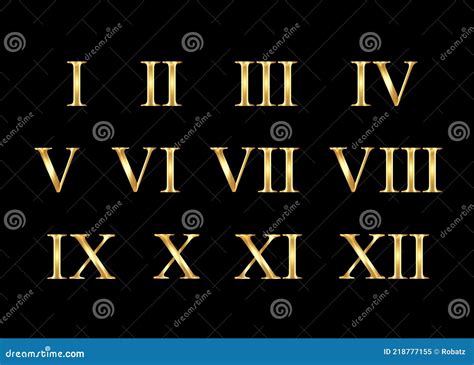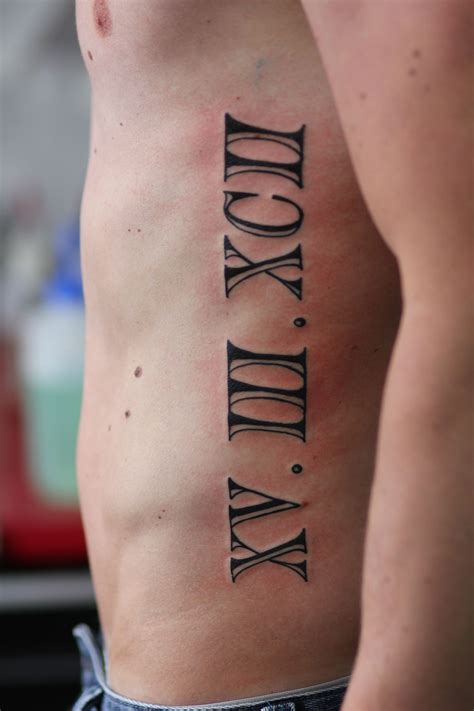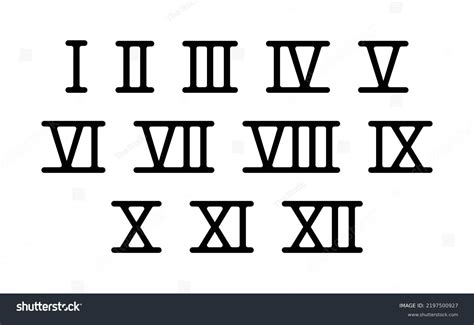
Roman numerals have been a fascinating part of human history, used extensively in ancient Rome and still relevant today in various contexts such as clock faces, book chapters, and even in the naming of monarchs and popes. One of the intriguing aspects of Roman numerals is the Roman Numbers Font, which adds a touch of elegance and historical significance to any design or document. This blog post will delve into the history, usage, and modern applications of Roman numerals, with a particular focus on the Roman Numbers Font.
History of Roman Numerals
Roman numerals originated in ancient Rome and were used for various purposes, including counting, labeling, and recording dates. The system is based on seven symbols: I, V, X, L, C, D, and M, which represent the numbers 1, 5, 10, 50, 100, 500, and 1,000, respectively. The numerals are combined in specific ways to represent larger numbers. For example, IV represents 4, IX represents 9, and XL represents 40.
The Roman numeral system was widely used throughout the Roman Empire and continued to be used in Europe well into the Middle Ages. However, with the advent of the Hindu-Arabic numeral system, which is more efficient for calculations, the use of Roman numerals declined. Today, Roman numerals are primarily used for decorative and symbolic purposes.
Understanding the Roman Numbers Font
The Roman Numbers Font is a typeface designed to mimic the appearance of traditional Roman numerals. This font is often used in contexts where a classical or historical aesthetic is desired. The font features elegant, serifed letters that evoke the style of ancient Roman inscriptions. The use of the Roman Numbers Font can add a sense of timelessness and sophistication to any project, whether it's a wedding invitation, a historical document, or a branding design.
One of the key features of the Roman Numbers Font is its readability. Despite its ornate appearance, the font is designed to be clear and easy to read, making it suitable for a wide range of applications. The font is also highly versatile, as it can be used in both digital and print media. Whether you're designing a website, creating a logo, or typesetting a book, the Roman Numbers Font can enhance the visual appeal of your work.
Applications of Roman Numbers Font
The Roman Numbers Font has a wide range of applications in both personal and professional settings. Here are some of the most common uses:
- Wedding Invitations: The Roman Numbers Font is a popular choice for wedding invitations, as it adds a touch of elegance and formality to the design. Couples often use Roman numerals to indicate the date and time of their wedding, creating a timeless and sophisticated look.
- Historical Documents: When creating historical documents or replicas, the Roman Numbers Font is an essential tool. It helps to recreate the authentic look and feel of ancient texts, making the document more believable and immersive.
- Branding and Logos: Many companies use the Roman Numbers Font in their branding and logos to convey a sense of tradition and reliability. The font's classic design can help to establish a strong brand identity and make a lasting impression on customers.
- Book Design: In book design, the Roman Numbers Font is often used for chapter headings and page numbers. This adds a literary and scholarly touch to the book, making it more appealing to readers.
- Clock Faces: Roman numerals are commonly used on clock faces, and the Roman Numbers Font is the perfect choice for this application. The font's clear and legible design makes it easy to read the time, while its classic appearance adds a touch of elegance to any clock.
Designing with Roman Numbers Font
When designing with the Roman Numbers Font, there are several factors to consider to ensure the best results. Here are some tips for effective use of the font:
- Pairing with Other Fonts: The Roman Numbers Font pairs well with a variety of other fonts, but it works best with serif fonts that have a similar classic feel. Avoid pairing it with modern, sans-serif fonts, as this can create a jarring contrast.
- Color and Contrast: Choose colors that complement the font's elegant design. Dark, rich colors like black, navy blue, and deep red work well with the Roman Numbers Font. Ensure there is sufficient contrast between the text and the background to maintain readability.
- Size and Spacing: The Roman Numbers Font is best used in larger sizes, as this enhances its readability and visual impact. Pay attention to line spacing and letter spacing to ensure the text is easy to read and visually appealing.
- Consistency: Use the Roman Numbers Font consistently throughout your design to create a cohesive and polished look. Avoid switching between different fonts or styles, as this can detract from the overall aesthetic.
Here is a table that summarizes the key features and applications of the Roman Numbers Font:
| Feature | Application |
|---|---|